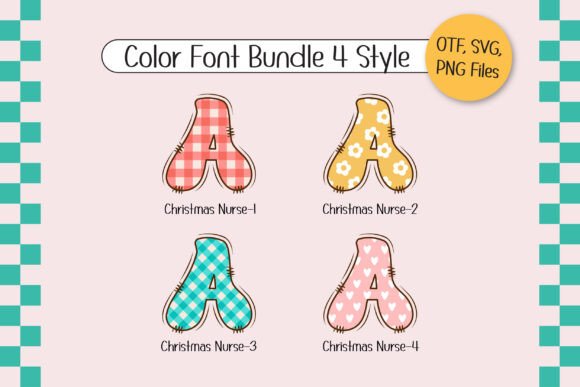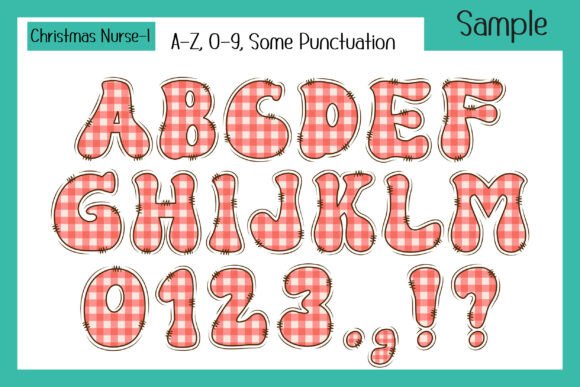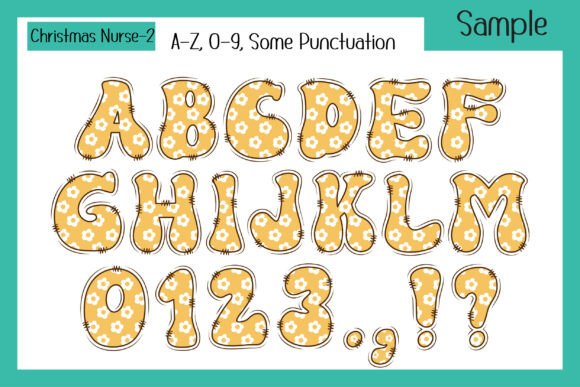
Christmas Nurse Font
Introducing “Christmas Nurse” a groovy-style font that blends festive Christmas cheer with fun nurse design patterns. Featuring sweet retro colors, this playful font is perfect for celebrating the nursing profession during the holidays. The set includes four theme color fonts and 22 bonus matching clip arts, making it ideal for nurse sublimation projects, DIY nurse crafts, nurse party decorations, T-shirts, branding, custom DIY craft projects, personalized names, and more. “Christmas Nurse” adds a whimsical, professional touch to your holiday-themed nurse designs!The black version of this font is compatible with Cricut Design Space and other cutting machines.Note! The color version of this font is only compatible with certain design programs incl. PhotoShop, Illustrator, Silhouette, and Inkscape. The OTF and/or TTF files of the color version are not compatible with Cricut. For more information on how to use this type of font please check our Ultimate Font Guide .